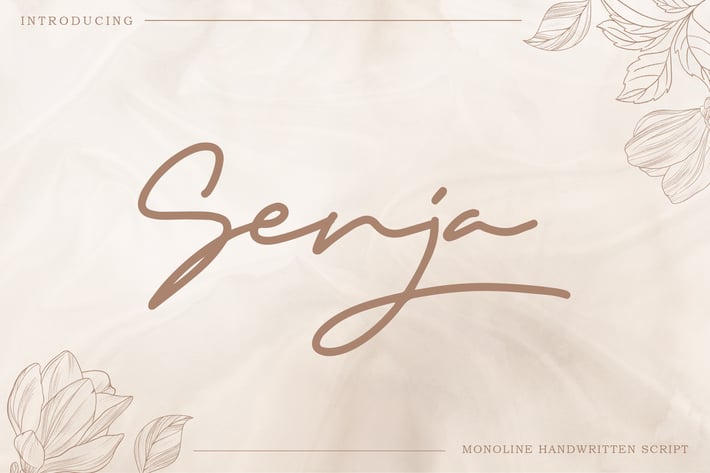
Senja - Monoline Handwritten Font
Senja is a font that is known for its simple charm. Its handwritten font with elegant style makes it a flawless font for all of your beauty-related desires. Whether you’re creating a logo, quotes, brand, and many more that need an extra touch of ‘elegance’ for your project, the Senja will provide you with all of the beauty which you need.